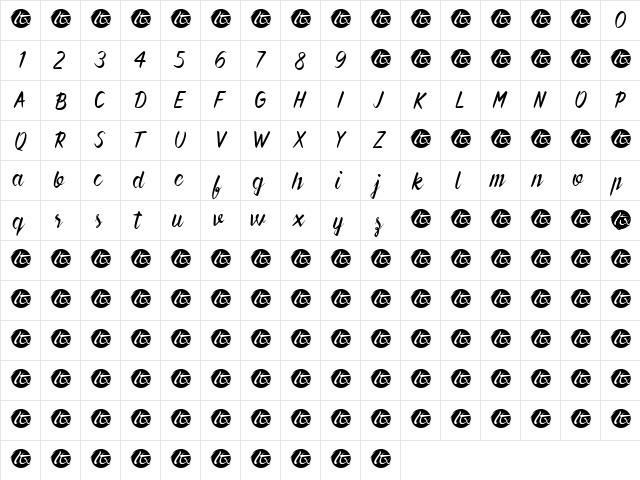
Forever Brush Script Regular
Design Context for Forever Brush Script Typeface
Forever Brush Script flows with the natural rhythm of handwritten lettering, making it ideal for designs that call for warmth and personal expression.
Font Pairing: Combine Forever Brush Script with a simple geometric sans for maximum contrast — the tension between flowing curves and clean structure is a classic typographic pairing.
Pro Tip: Pair Forever Brush Script with a clean sans-serif for supporting text. The contrast between fluid script and geometric structure creates an elegant typographic hierarchy.